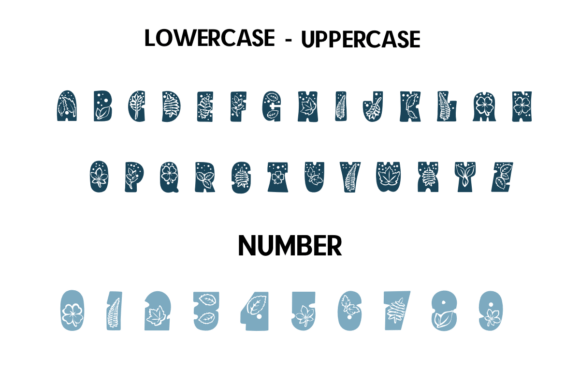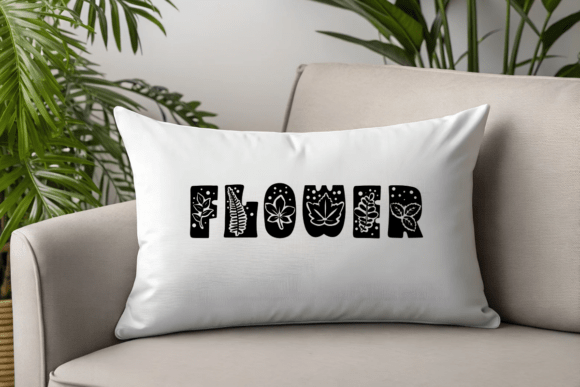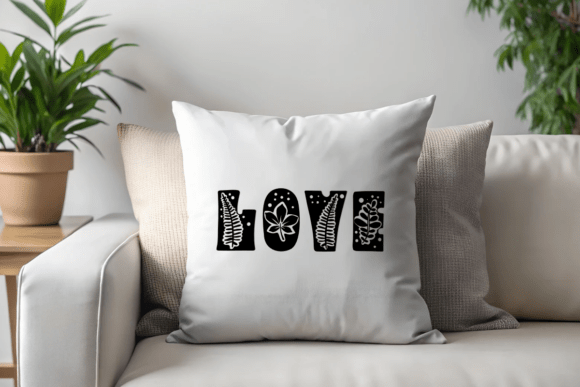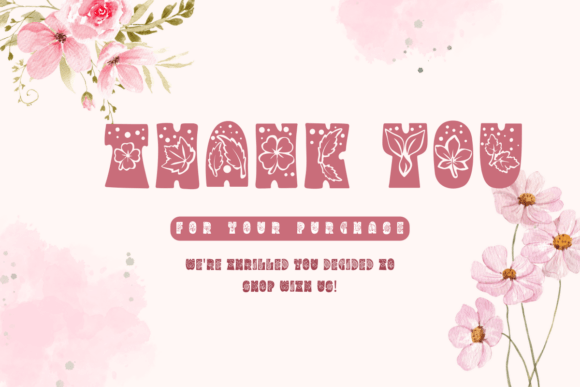
Introducing Floral Leaves Font: Elevate Your Design with Nature-Inspired Elegance
In the realm of typography, few fonts manage to capture the essence of nature’s beauty as effectively as Floral Leaves. This highly thematic and artistic display font is specifically designed for impactful visual storytelling, making it a premier asset for designers and crafters seeking to infuse their projects with a touch of organic elegance.
A Masterpiece of Botanical Illustrations
Floral Leaves boasts massive, blocky letterforms that serve as containers for intricate botanical illustrations, including various leaf structures and fern fronds. Each character is meticulously crafted with a heavy silhouette and a stable vertical axis, providing a sense of stability and structure. The internal negative space is cleverly utilized to create a layered, organic texture, adding depth and visual interest to the font.
Ideal for Eco-Friendly Branding and More
Given its unique design, Floral Leaves is perfectly suited for a variety of applications, including:
- Eco-friendly branding: The font’s botanical illustrations and organic texture make it an excellent choice for brands looking to convey a sense of sustainability and environmental responsibility.
- Artisanal product packaging: Floral Leaves can add a touch of natural elegance to product packaging, helping to differentiate your brand in a crowded market.
- Nature-focused editorial headers: The font’s thematic design makes it an excellent choice for editorial headers, particularly for articles and features focused on nature, sustainability, and the environment.
- Creative lifestyle graphics: Floral Leaves can also be used to create stunning lifestyle graphics, including social media posts, blog headers, and more.
Key Features of Floral Leaves Font
So, what sets Floral Leaves apart from other display fonts? Here are some of its key features:
- Intricate botanical illustrations: Each character features intricate illustrations of leaf structures and fern fronds, adding a touch of natural beauty to your designs.
- Heavy silhouette and stable vertical axis: The font’s heavy silhouette and stable vertical axis provide a sense of stability and structure, making it easy to read and visually appealing.
- Layered, organic texture: The internal negative space is used to create a layered, organic texture, adding depth and visual interest to the font.
- Highly thematic design: Floral Leaves is specifically designed to evoke a sense of nature and botanical wonder, making it perfect for projects that require a touch of organic elegance.
Tips for Using Floral Leaves Font
To get the most out of Floral Leaves, here are some tips for using the font in your designs:
- Use it sparingly: Due to its highly thematic design, Floral Leaves is best used sparingly to avoid overwhelming the viewer. Use it for headers, titles, or key phrases to add emphasis and visual interest.
- Pair it with complementary fonts: Floral Leaves can be paired with a variety of complementary fonts to create a visually appealing contrast. Consider pairing it with a clean, sans-serif font for body text.
- Experiment with color: The font’s botanical illustrations and organic texture make it an excellent choice for designs that incorporate natural colors, such as greens, blues, and earth tones.
Floral Leaves Font is a unique and artistic display font that can elevate your designs with its nature-inspired elegance. With its intricate botanical illustrations, heavy silhouette, and layered organic texture, this font is perfect for eco-friendly branding, artisanal product packaging, nature-focused editorial headers, and creative lifestyle graphics. By incorporating Floral Leaves into your design toolkit, you can add a touch of organic sophistication to your projects and stand out in a crowded market.